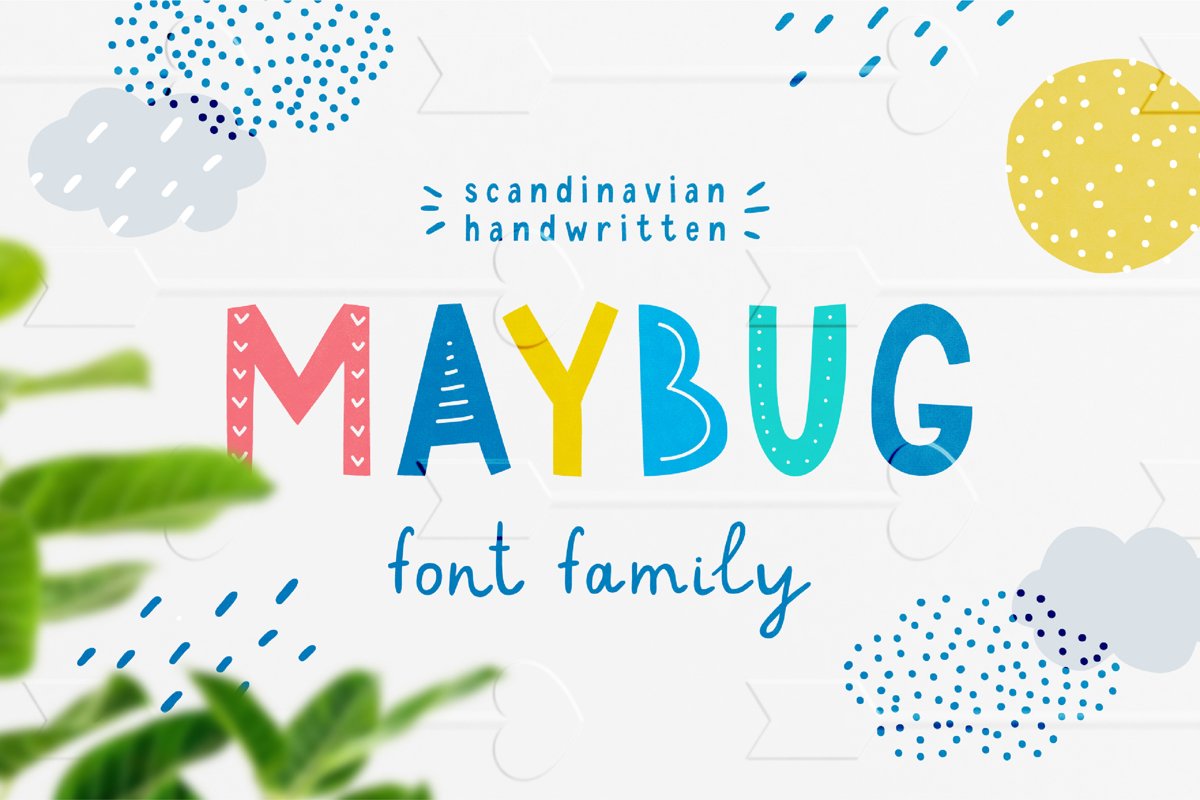
Maybug Latin & Cyrillic scandinavian fonts
Maybug is a funny Scandinavian font family which makes it great for any children's design.
Each of these fonts include latin and cyrillic characters, diacritics, numbers and punctuation - 254 glyphs in total.